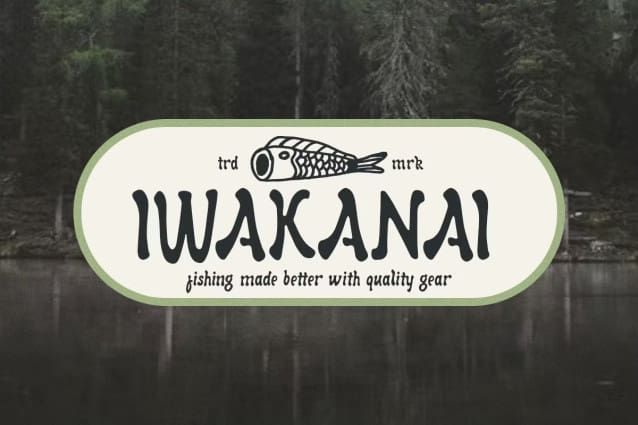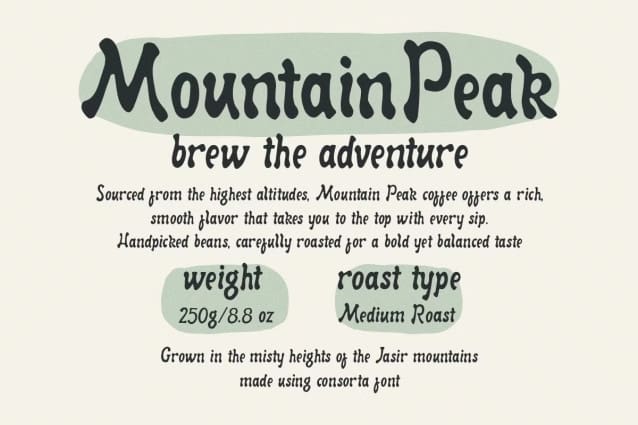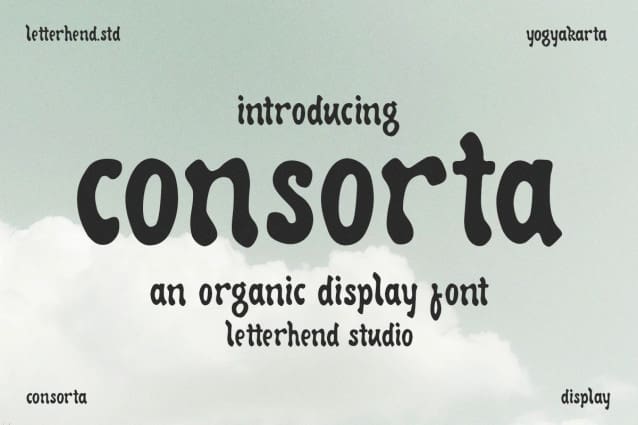
Consorta Display Font
Consorta Display Font is a distinctive display font that merges the bold, dramatic essence of Gothic blackletter with a modern, casual twist. Its fluid curves and softened edges add a contemporary charm, while its strong letterforms echo the timeless elegance of traditional blackletter styles. Perfect for designs that demand both sophistication and creativity.